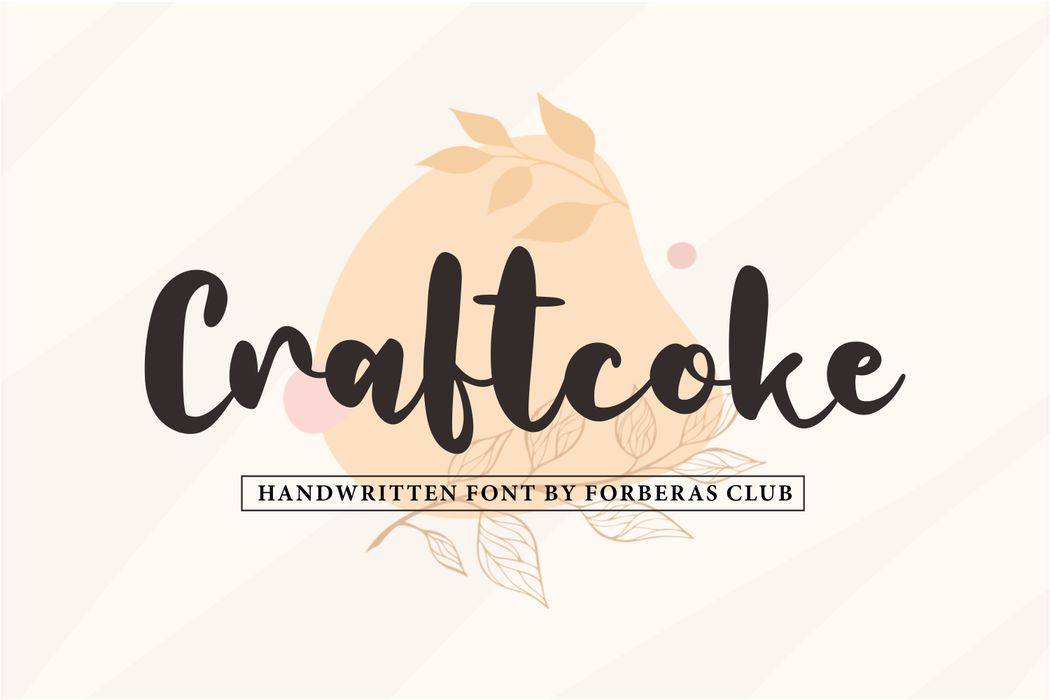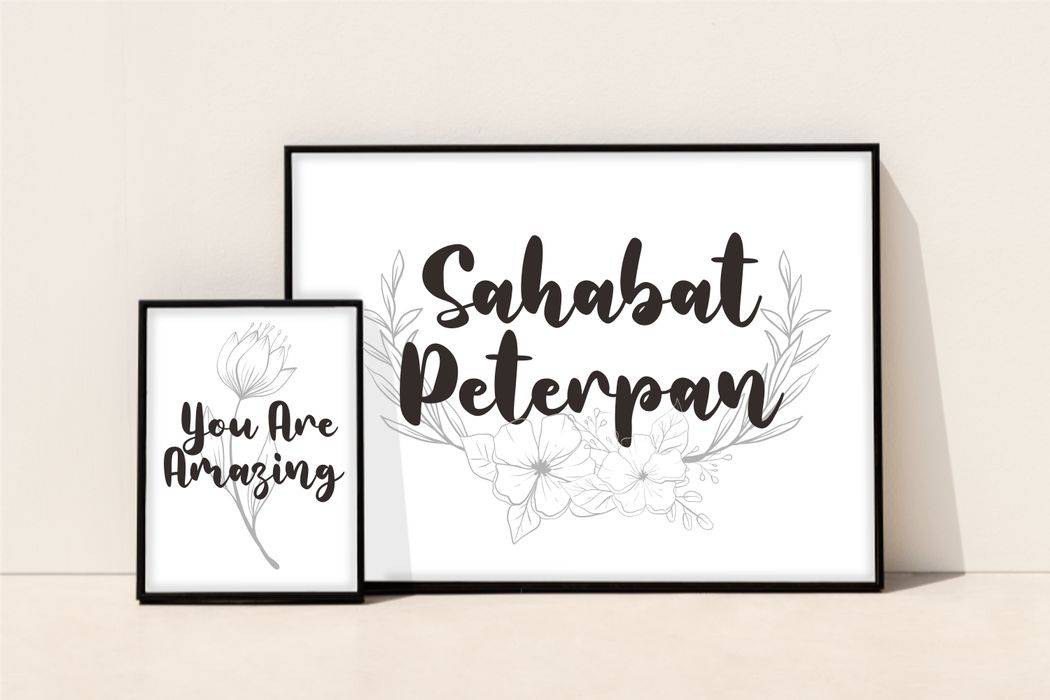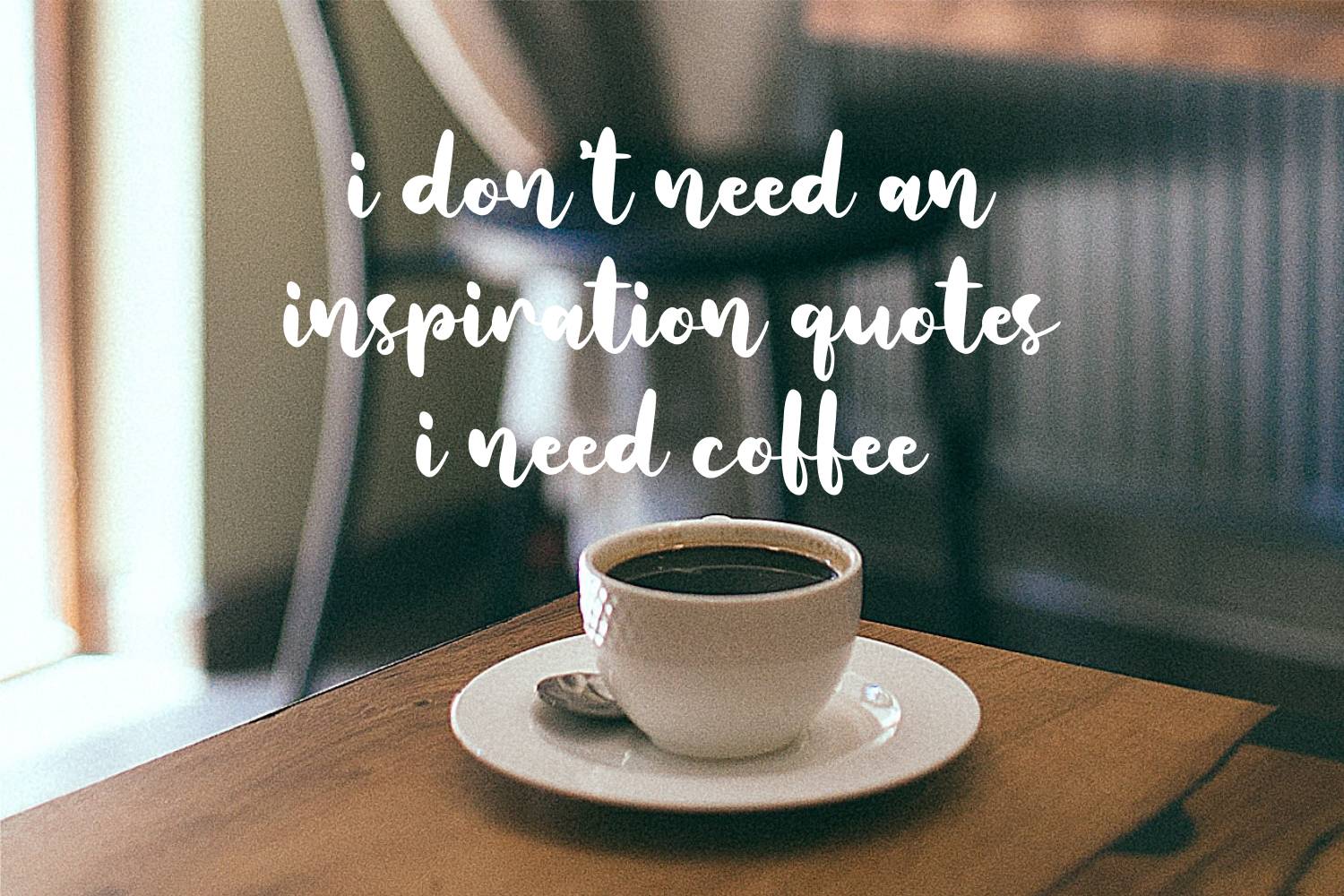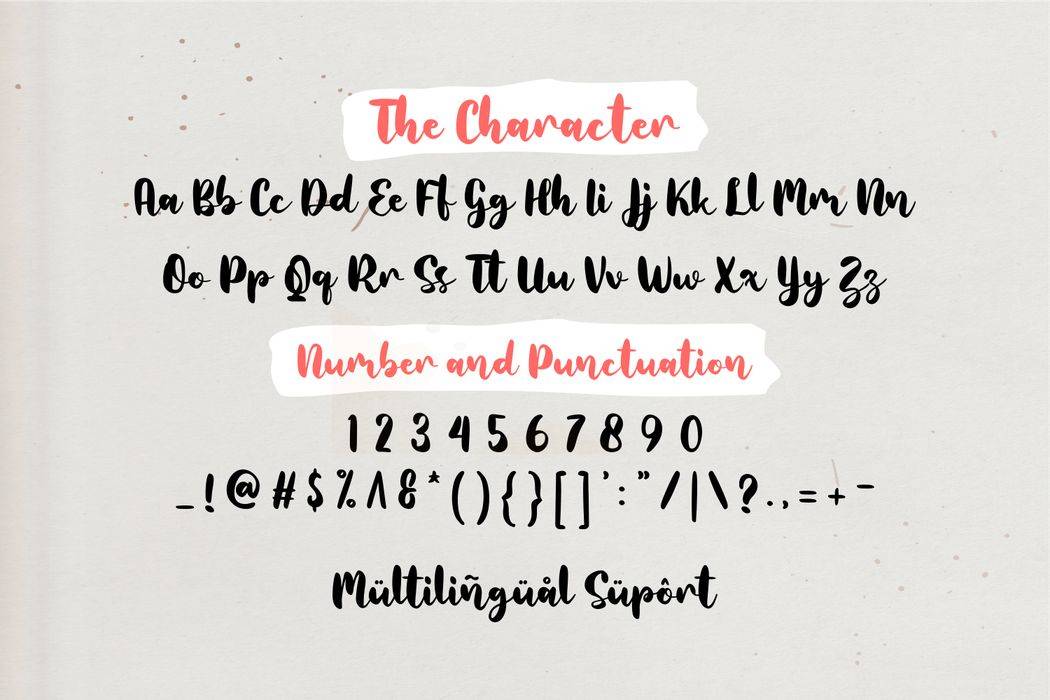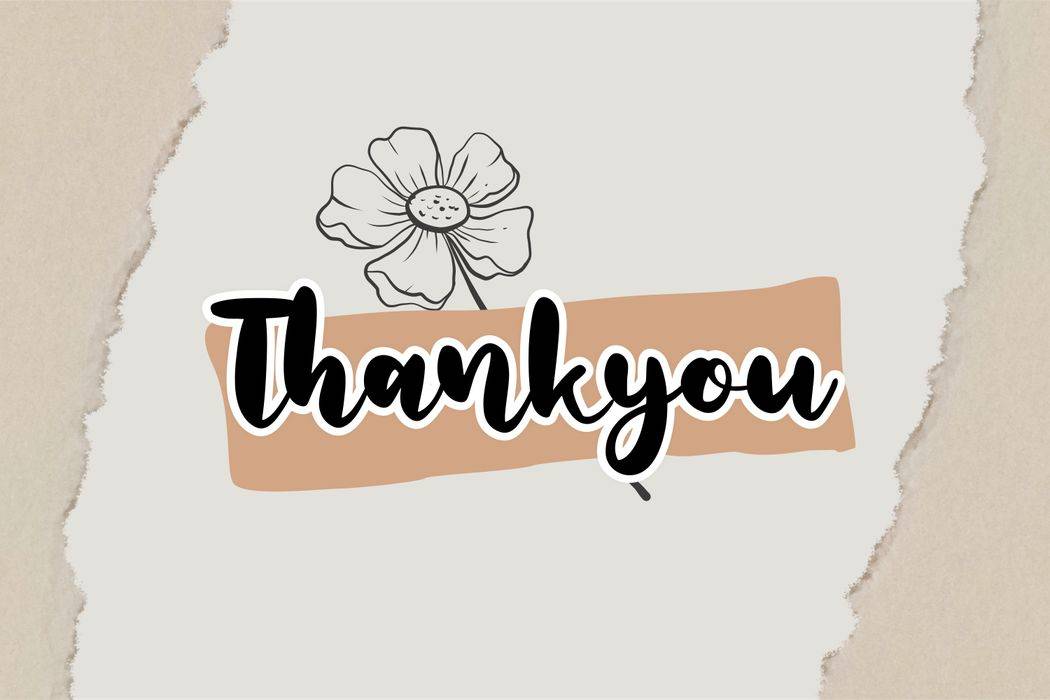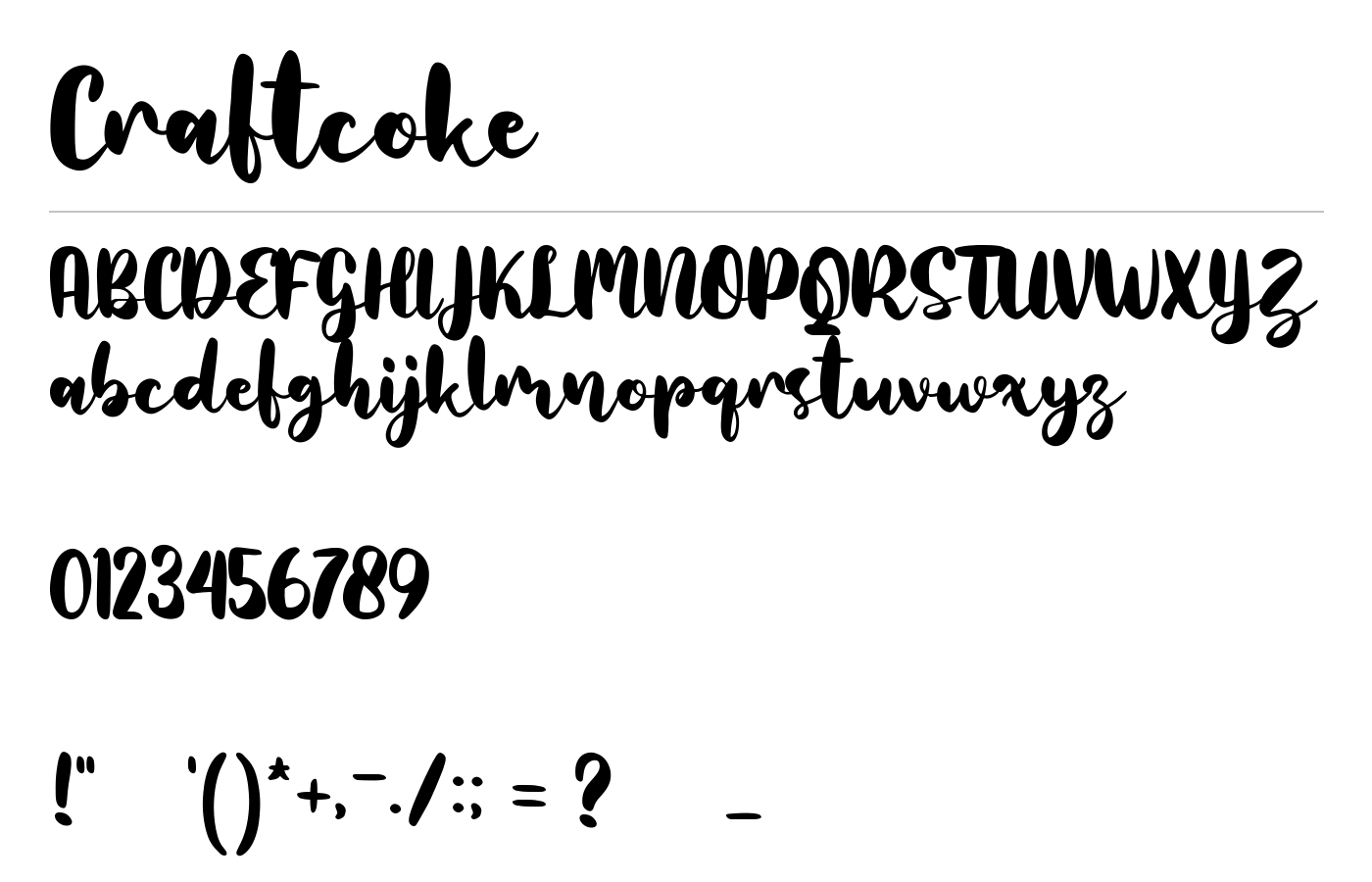
Craft Coke is a lively and bold script font with a playful, handwritten feel created by its thick strokes and smooth, rounded curves. It works beautifully for projects seeking a friendly and artistic touch, making it ideal for logos, packaging, invitations, and creative headlines where a warm, personal vibe is desired. Its clear letterforms balance charm and readability, adding a handcrafted, inviting style to any design.
Craft Coke Font
About Craft Coke Font
| Font family | Craft Coke Font |
| Release date | 2021-12-23 |
| Designer | Forberas |